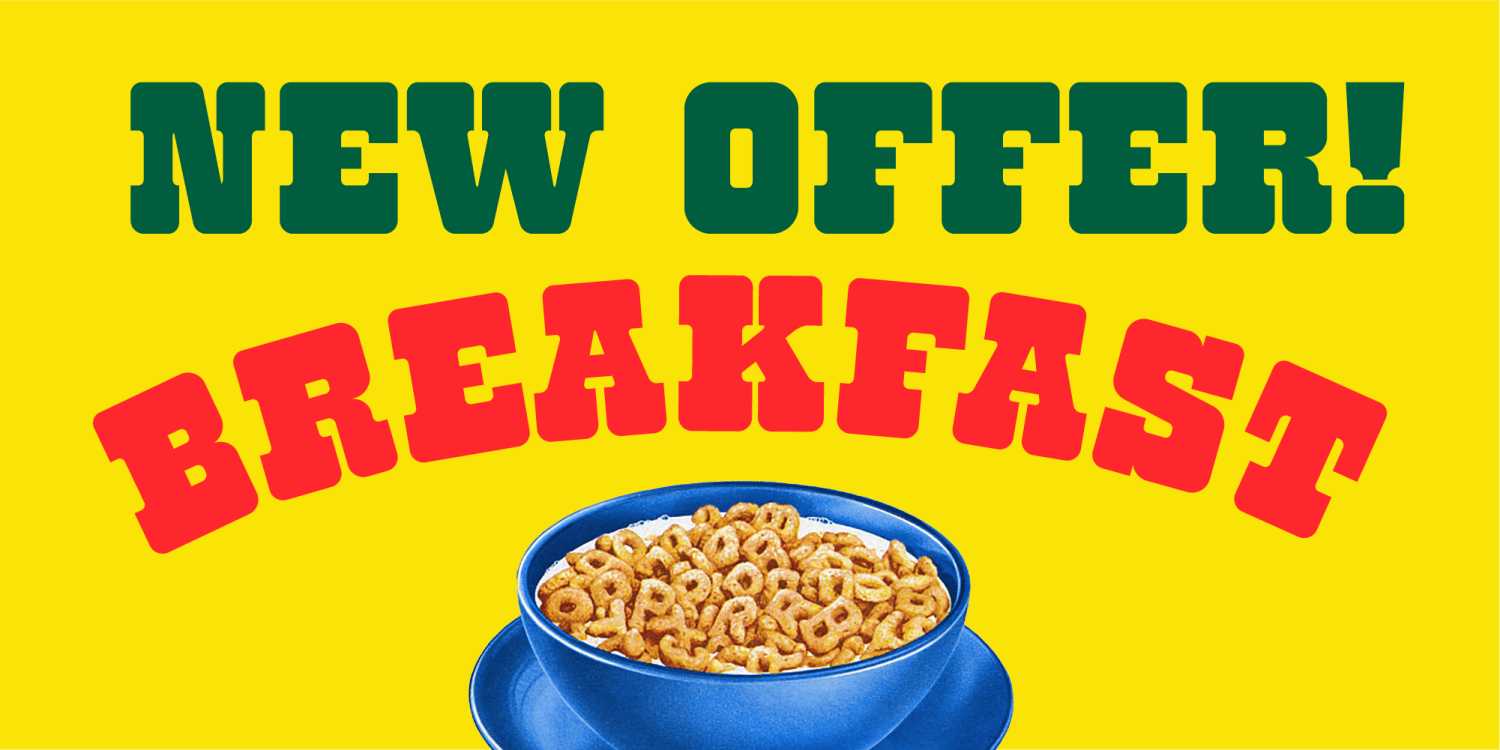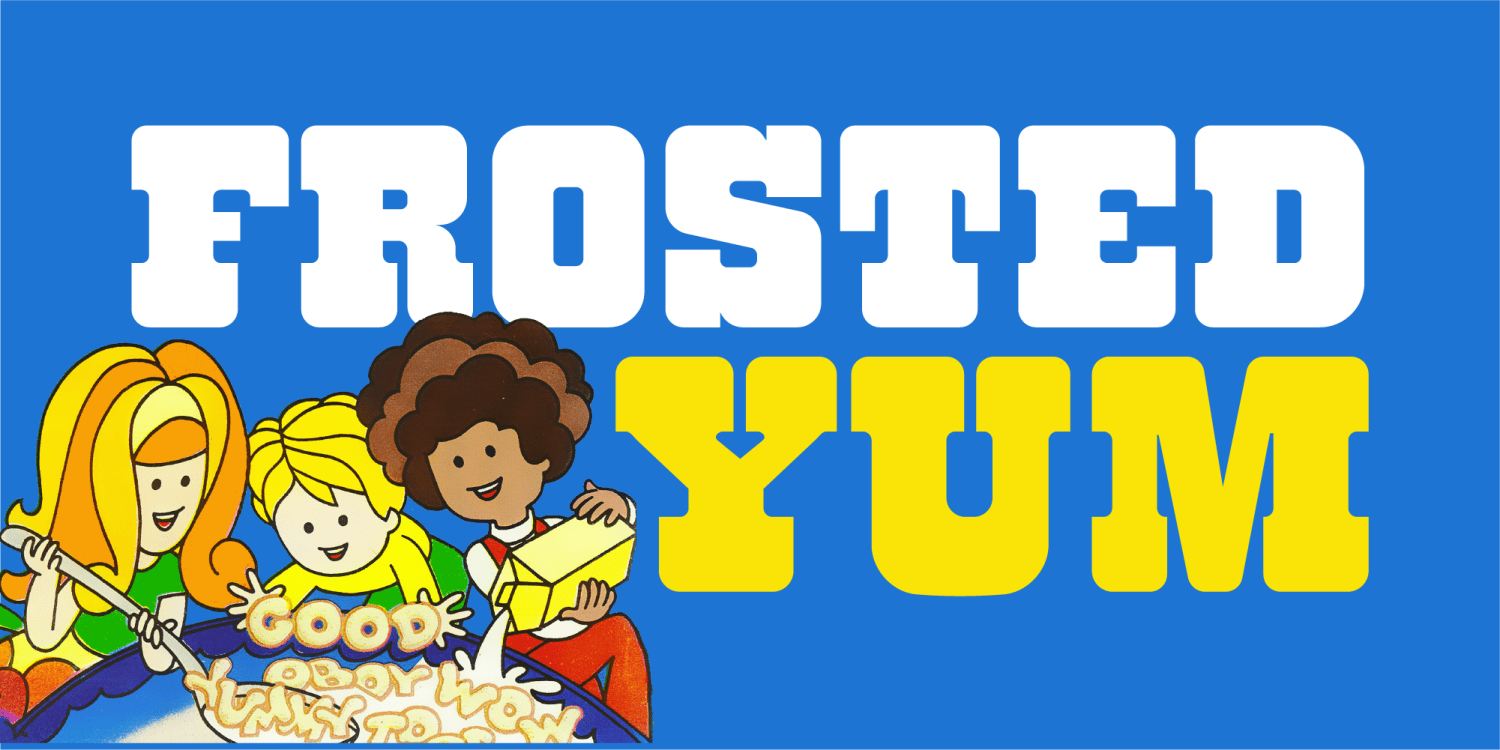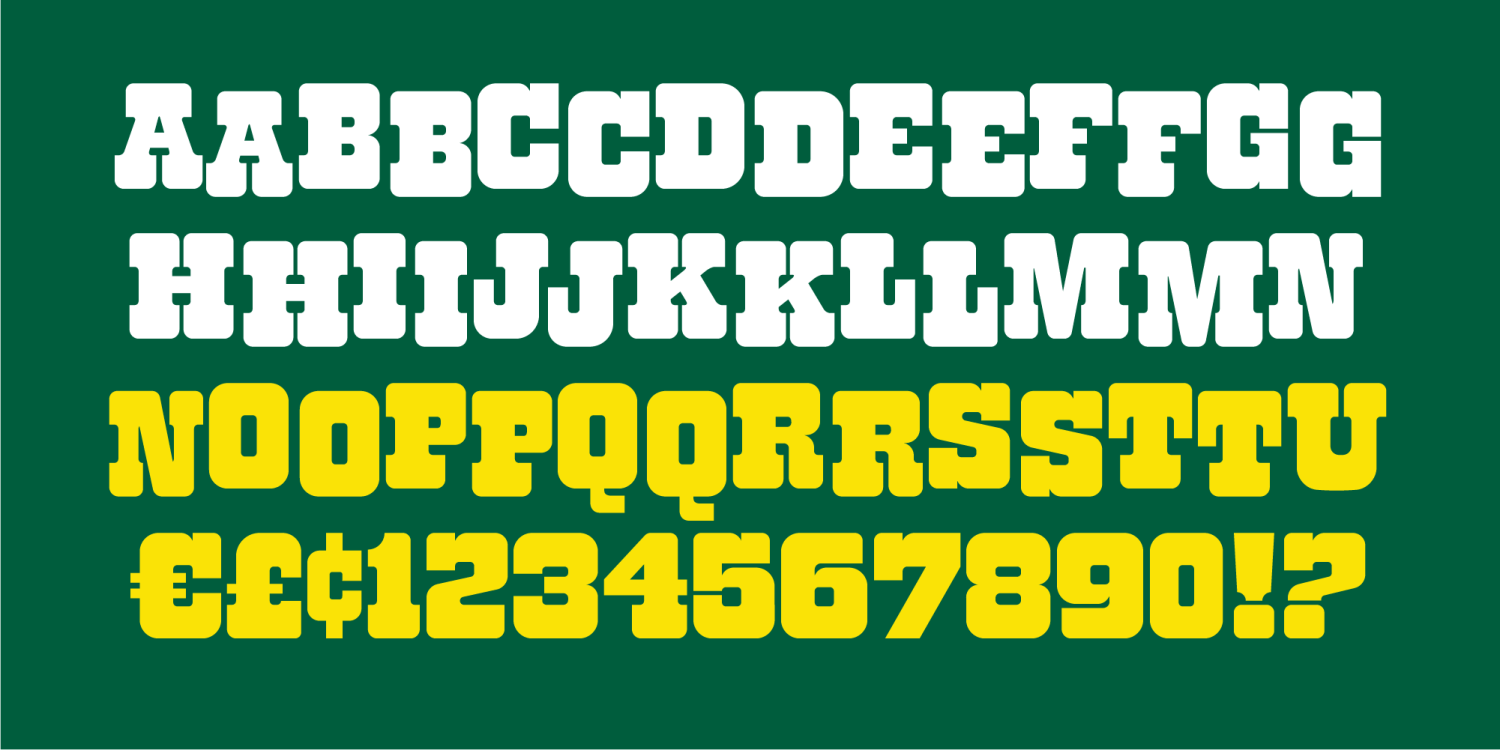
Introducing Alfie, the font that brings a taste of the wild west to your words with a sprinkle of 1970s breakfast cereal nostalgia! Imagine lassoing letters with the soft edges of a cozy morning bowl of your favorite cereal. Alfie rustles up the perfect…